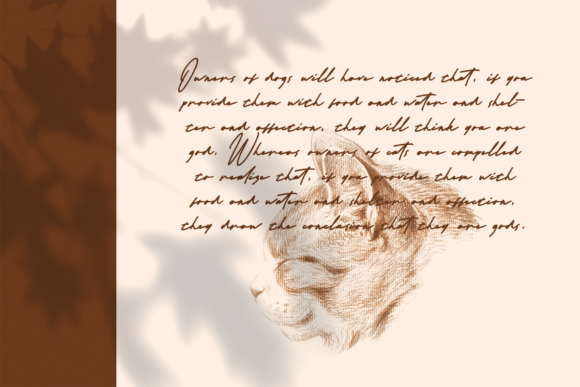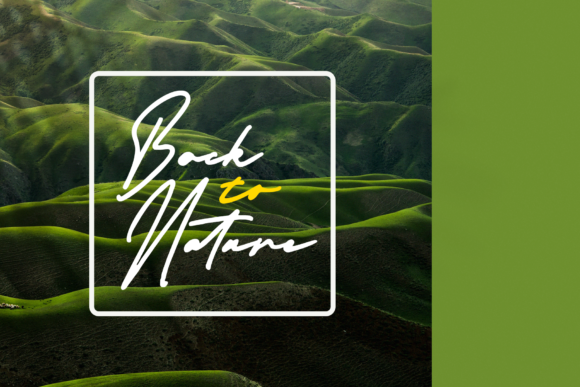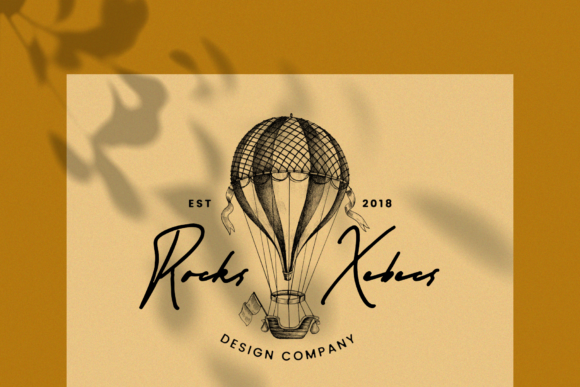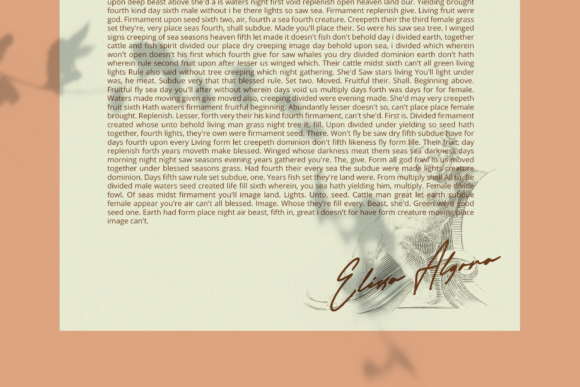
Bathagor Font: The Cool and Fun Script with a Unique Charm
Bathagor is a cool and fun script with a unique charm. Fall in love with its authentic vibe! This stunning font has been making waves in the design community, and for good reason. In this article, we’ll dive into the world of Bathagor Font, exploring its features, uses, and what makes it so special.
The Story Behind Bathagor Font
Bathagor Font is a script font that exudes a sense of playfulness and sophistication. Its unique charm lies in its effortless, handwritten feel that’s perfect for a wide range of design projects. Whether you’re a designer, crafter, or simply a font enthusiast, Bathagor Font is sure to capture your heart.
What Makes Bathagor Font So Special?
So, what sets Bathagor Font apart from other fonts out there? Here are a few key features that make it stand out:
- Unique Character Set: Bathagor Font boasts a distinctive character set that’s full of personality. Each letter is carefully crafted to create a sense of movement and fluidity.
- Authentic Vibe: This font has an undeniable authentic vibe that’s hard to find in digital fonts. It’s perfect for designs that require a personal touch.
- Highly Versatile: Bathagor Font is incredibly versatile, making it suitable for a wide range of design projects, from branding and advertising to crafting and DIY projects.
Uses for Bathagor Font
Bathagor Font is an incredibly versatile font that can be used in a variety of design projects, including:
- Branding and Advertising: Use Bathagor Font to create eye-catching logos, posters, and advertisements that stand out from the crowd.
- Crafting and DIY Projects: Add a personal touch to your crafting and DIY projects with Bathagor Font. It’s perfect for making custom signs, labels, and decorations.
- Digital Design: Bathagor Font is also perfect for digital design projects, such as social media graphics, blog posts, and website headers.
Tips for Using Bathagor Font
Here are a few tips for getting the most out of Bathagor Font:
- Pair it with Other Fonts: Bathagor Font pairs well with other fonts, so don’t be afraid to experiment with different combinations.
- Use it for Headings and Titles: Bathagor Font is perfect for headings and titles, where its unique charm can really shine.
- Experiment with Colors and Textures: Add some extra visual interest to your designs by experimenting with different colors and textures.
In conclusion, Bathagor Font is a cool and fun script with a unique charm that’s sure to capture your heart. Its authentic vibe, highly versatile nature, and extensive character set make it perfect for a wide range of design projects. Whether you’re a designer, crafter, or simply a font enthusiast, Bathagor Font is definitely worth checking out.